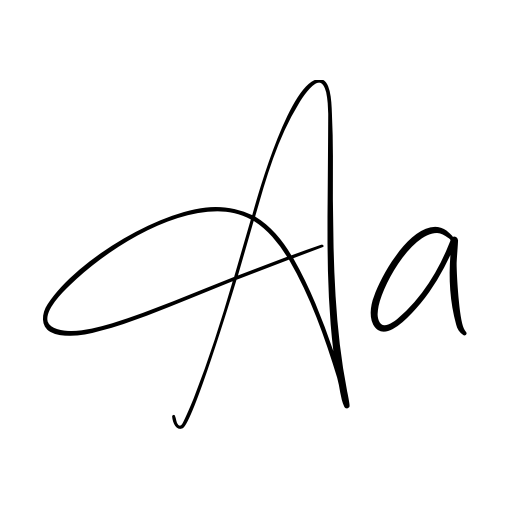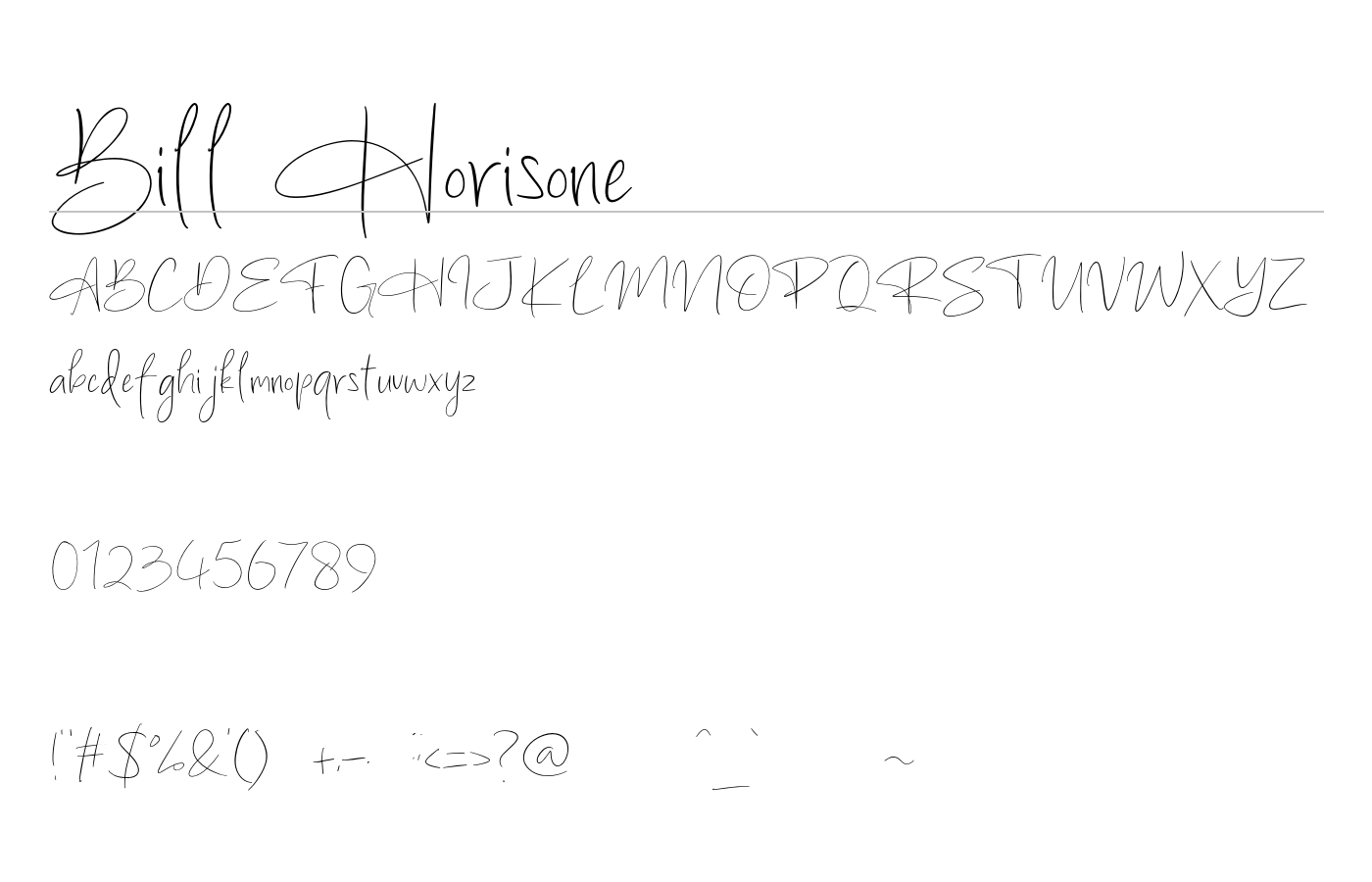
Bill Horisone is a delicate, hand-drawn script font featuring tall, slender letterforms with a light, airy feel and fine, flowing strokes. Its elegant, casual style makes it ideal for creative projects like invitations, personal branding, and artistic designs where a sophisticated yet approachable handwritten touch is desired. This font works best in large sizes, adding a unique personality to headlines or logos without overwhelming the composition.
Bill Horisone Font
About Bill Horisone Font